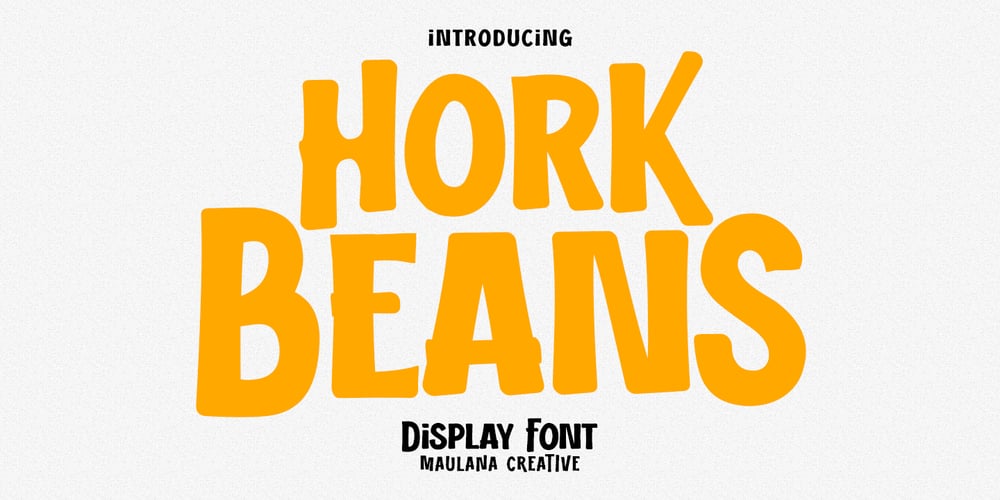
MC Hork Beans Font Family was designed by Gilang Maulana and published by Maulana Creative. MC Hork Beans contains 1 styles and family package options. Hork Beans is a simply casual handwritten font. With medium low contrast stroke, fun character with a bit of ligatures and alternates. To give you an extra creative work. Hork Beans font support multilingual more than 100+ language. This font is good for logo design, Social media, Movie Titles, Books Titles, a short text even a long text letter and good for your secondary text font with sans or serif. Make a stunning work with Hork Beans font. Cheers, Maulana Creative